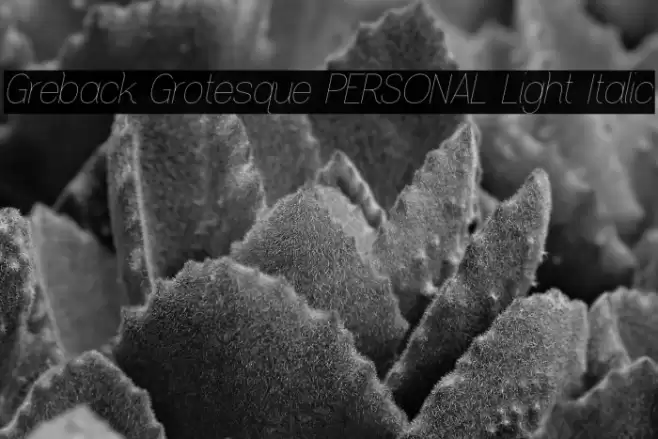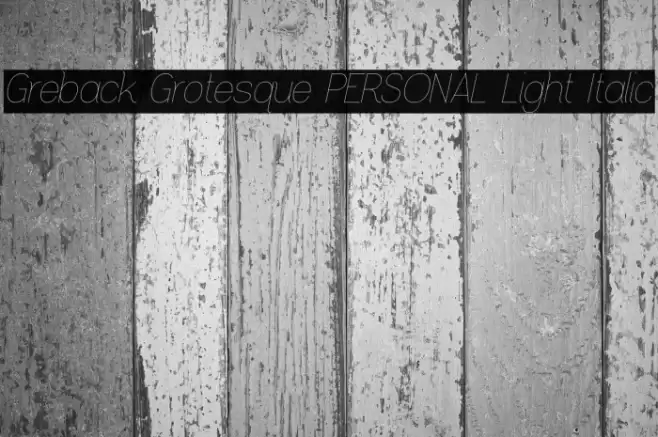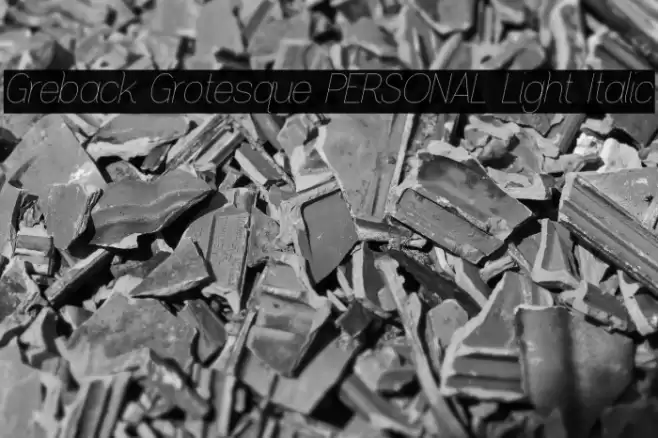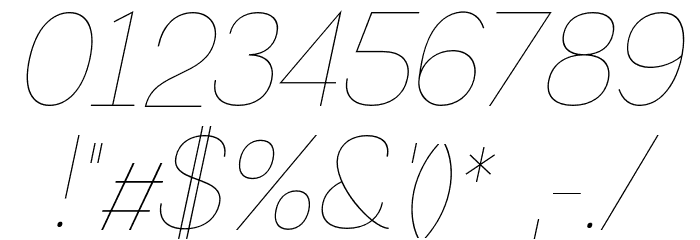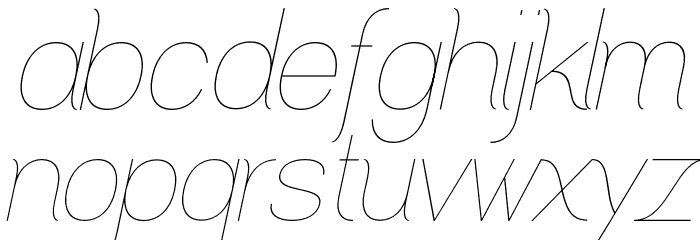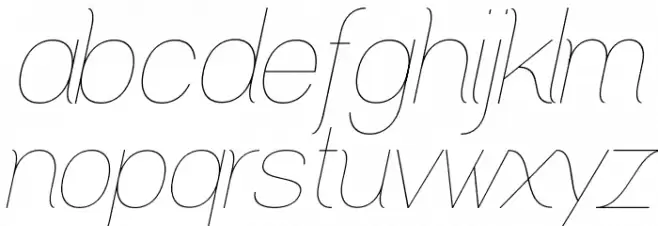
Greback Grotesque PERSONAL Light Italic Font
Greback Grotesque PERSONAL Light Italic Description
This font features a sleek and modern design with a light and airy appearance. The characters are elegantly crafted with a slight italic slant, giving them a dynamic and sophisticated look. The thin strokes and minimalistic style make it ideal for contemporary design projects. The uppercase and lowercase letters maintain a consistent flow, while the numerals and special characters complement the overall aesthetic. Its clean lines and subtle curves create a harmonious balance, making it suitable for a variety of uses.
A sleek, modern, and light italic font with a minimalistic design from Regular fonts.
- Proposed Projects: Ideal for modern branding, fashion magazines, elegant invitations, and minimalist websites.